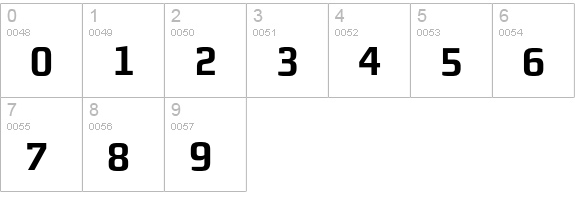
MorganAvec BoldLining Font Details
Introducing MorganAvec BoldLining font, a stylish and modern typeface that exudes confidence and sophistication. With its bold lines and sleek curves, MorganAvec BoldLining is perfect for making a statement in your designs. Whether you're creating a logo, a poster, or any other creative project, this versatile font is sure to grab attention. The best part? MorganAvec BoldLining is available for free download at FontsMarket.com. This means you can easily access this gorgeous font and elevate your designs without breaking the bank. So why wait? Download MorganAvec BoldLining today and add a touch of elegance to your projects.